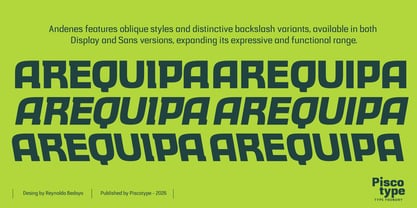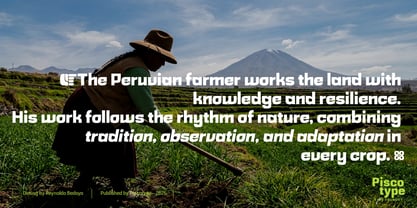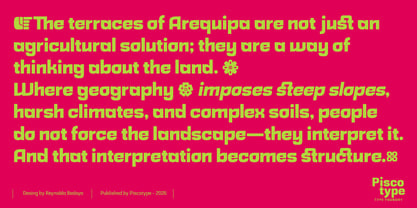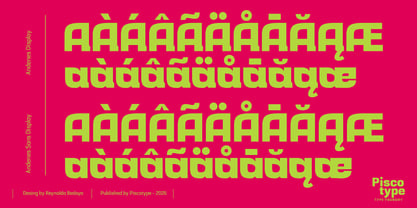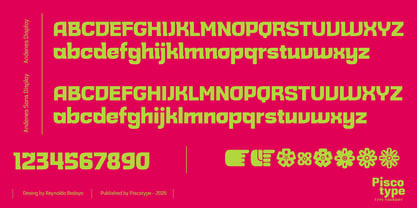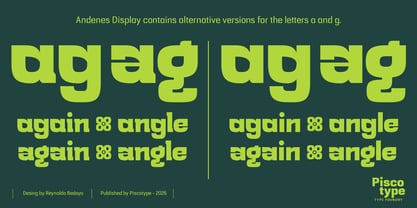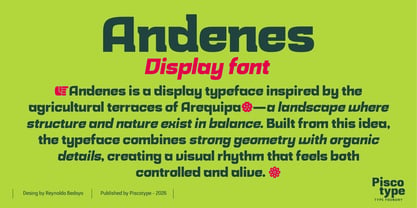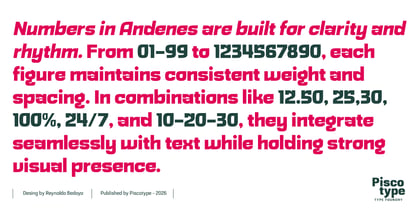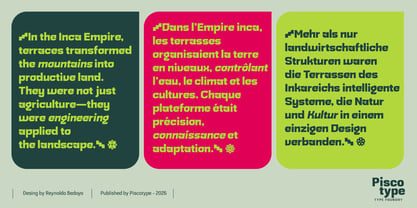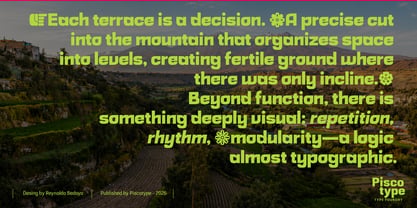
Andenes
The Andenes Font Family was designed by Reynaldo Bedoya and published by Piscotype. Andenes contains 6 styles and family package options. More about this family
Andenes is a display typeface inspired by the agricultural terraces of Arequipa—a landscape where structure and nature exist in balance. Built from this idea, the typeface combines strong geometry with organic details, creating a visual rhythm that feels both controlled and alive. Designed for branding and expressive use, Andenes stands out through its bold presence and distinctive forms. Every character reflects a sense of construction, layering, and adaptation—echoing the logic of the land it comes from. The family includes a sans version and oblique styles, expanding its versatility while maintaining a consistent identity. From striking headlines to conceptual visual systems, Andenes brings personality and depth to any project. This is not just a typeface—it’s a structured expression of nature, translated into form.